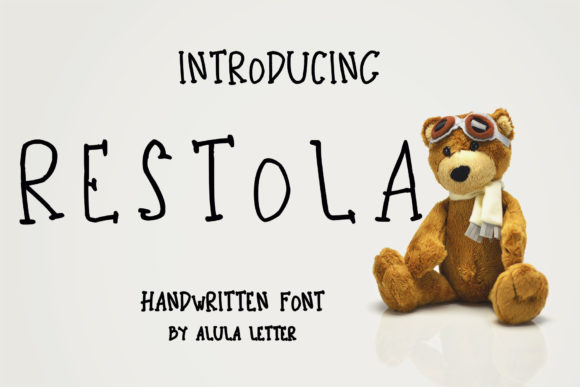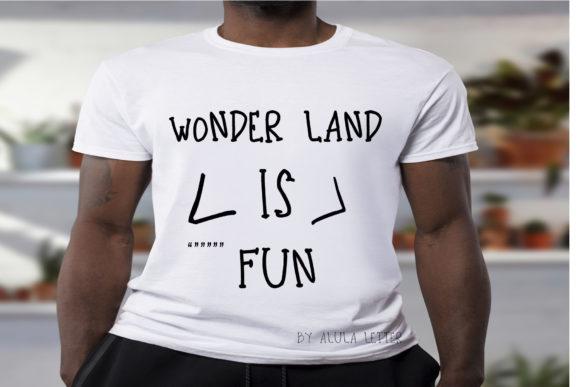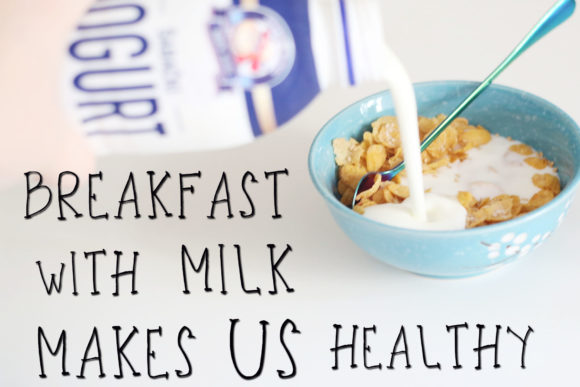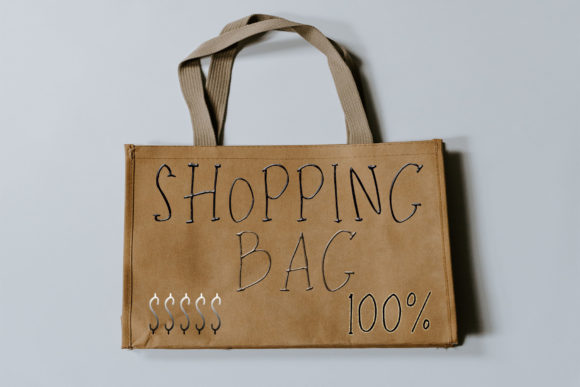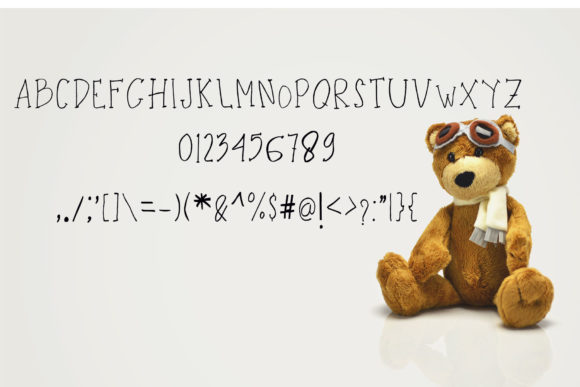
Restola Font
About Restola Font
Restola is a unique, funny font that radiates authenticity. Get inspired by its unique charm, and turn any design project into an eye-catcher!